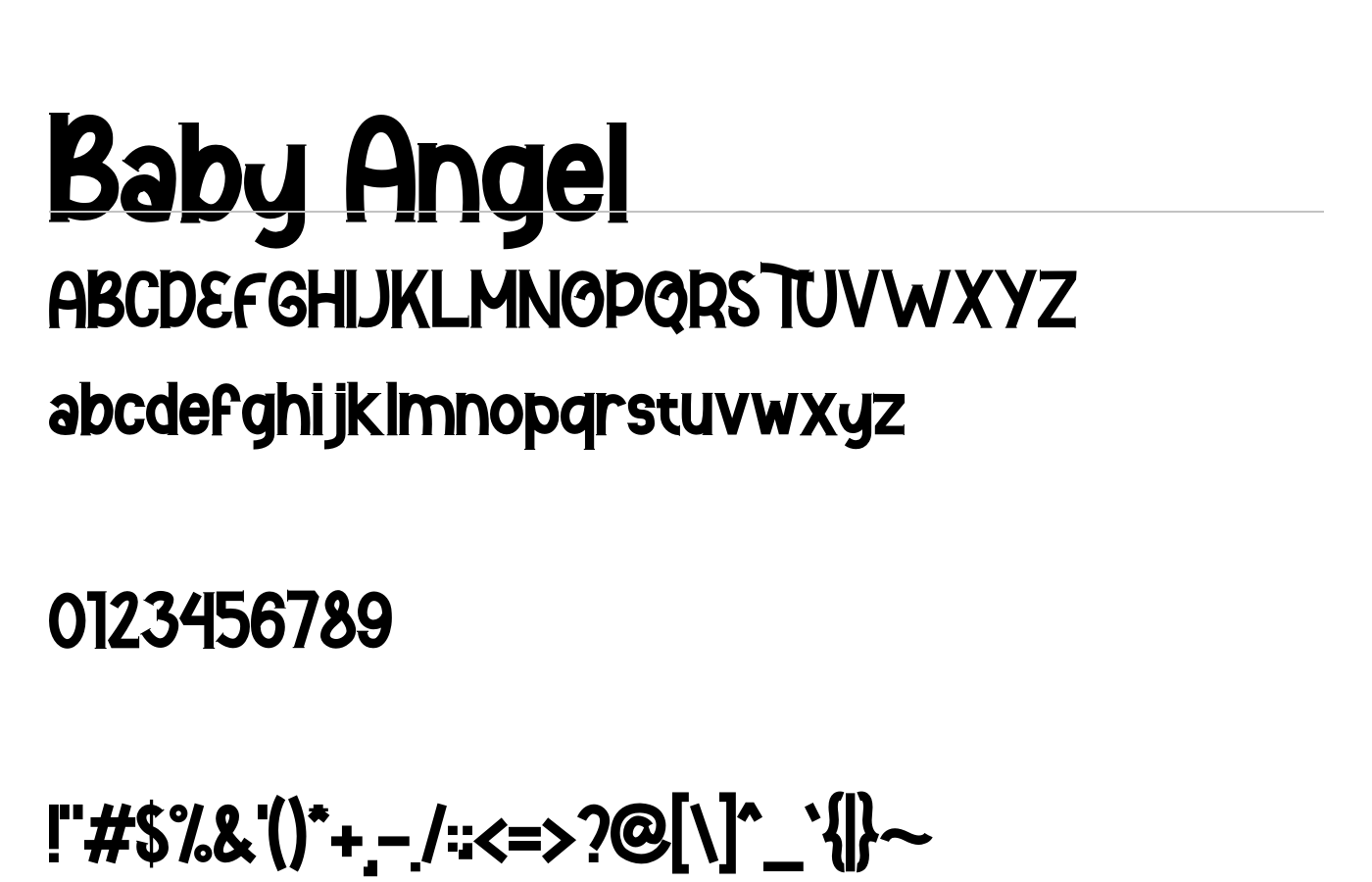
Baby Angel Font is a playful and quirky sans serif typeface with a whimsical personality. Its unique, slightly irregular letterforms and moderate weight give it a friendly and casual feel, making it perfect for creative, fun branding and informal designs. This font works well for logos, children’s products, posters, and any project seeking a lighthearted and approachable vibe.
Baby Angel Font
About Baby Angel Font
| Font family | Baby Angel Font |